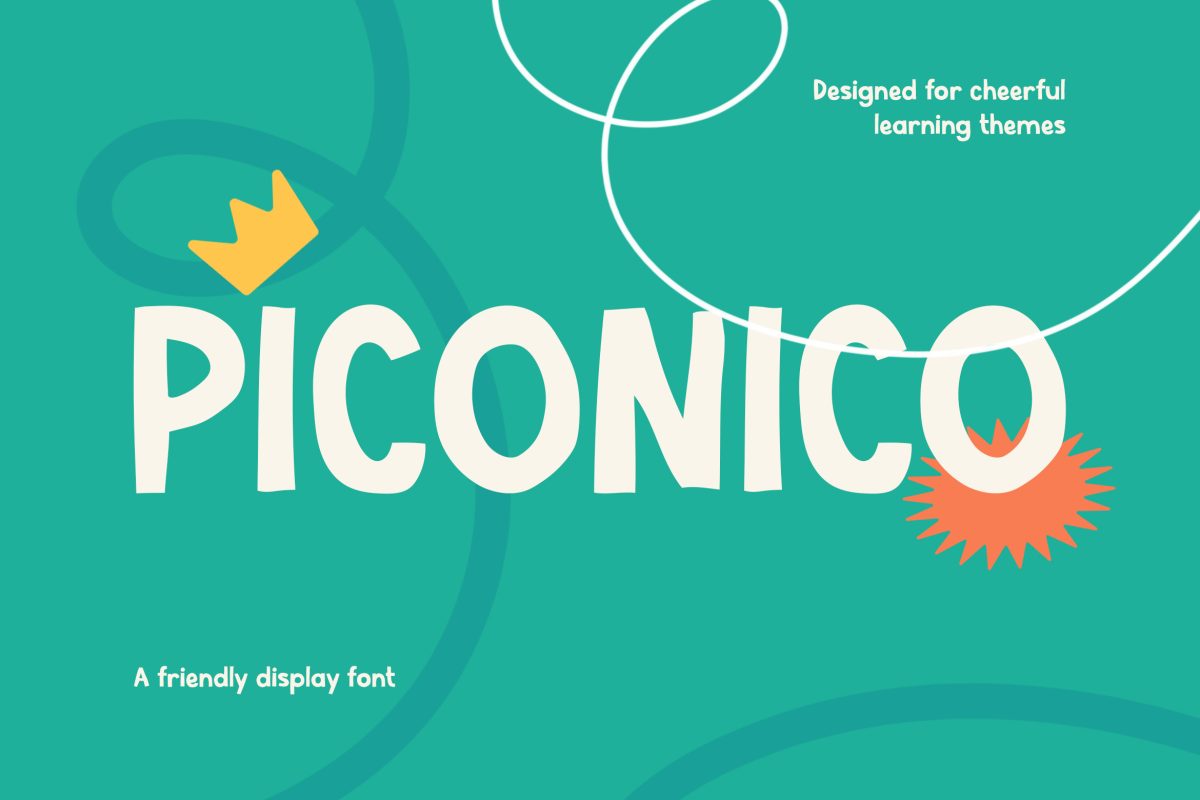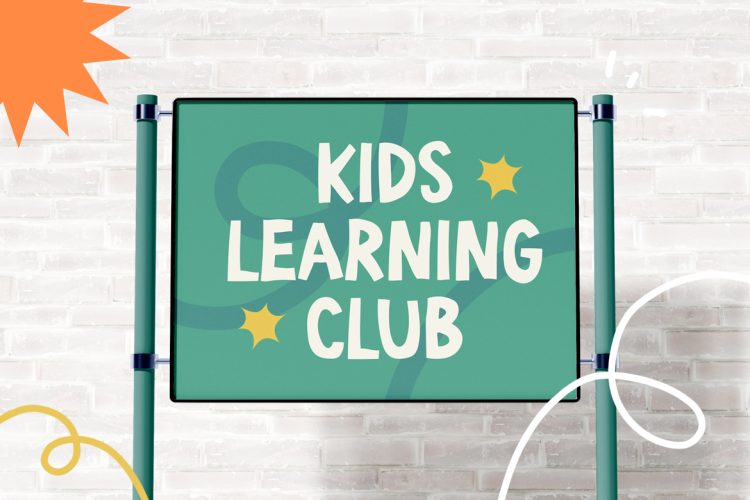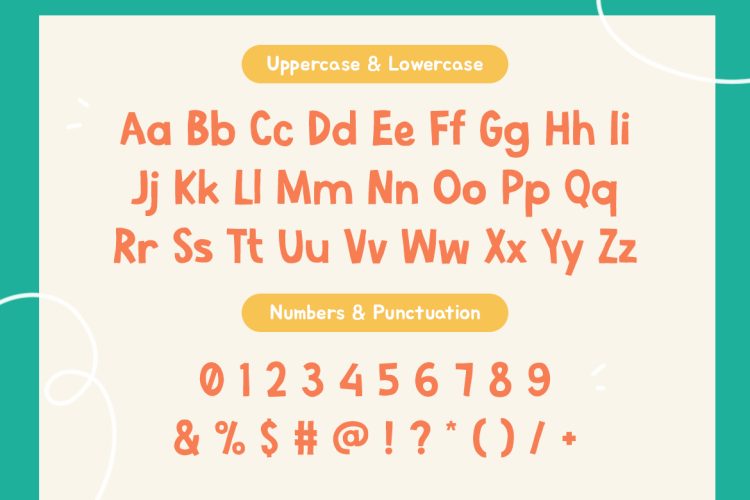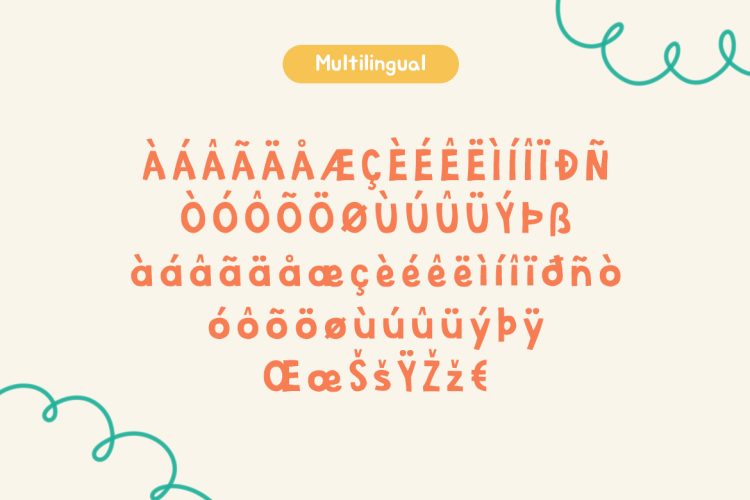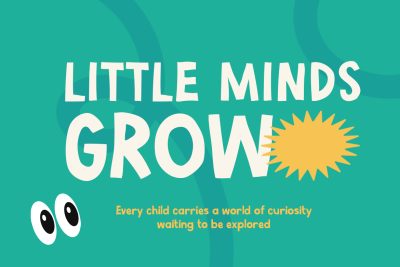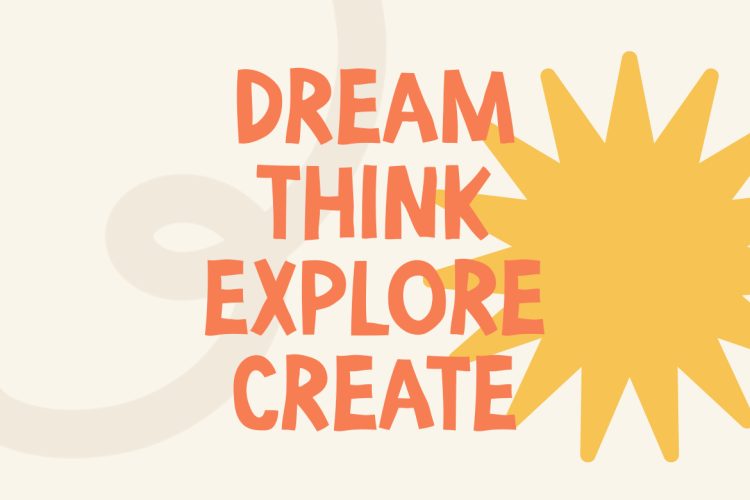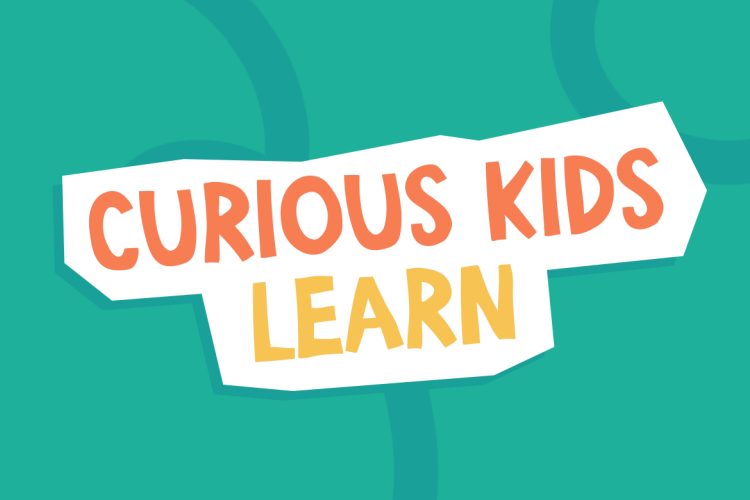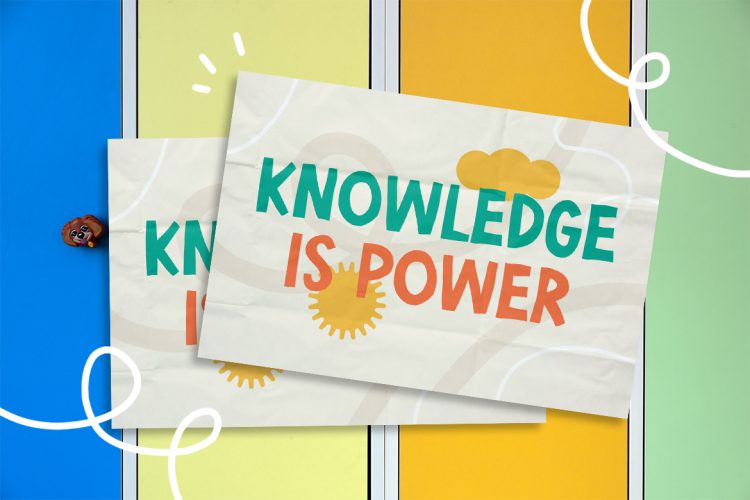
Instagram Font PICONICO โ Playful Creativity for Kids Typography
Instagram Font PICONICO is a cheerful and friendly display typeface designed to bring fun and creativity into playful design projects. Its rounded shapes, soft curves, and expressive letterforms instantly create a warm and joyful atmosphere. Because of its lively personality, the font feels approachable and energetic. As a result, every headline becomes more engaging and easy to notice. Moreover, the playful structure makes the typography highly readable while maintaining a unique cartoon-like charm. Instagram Font PICONICO perfectly captures the spirit of childrenโs creativity, curiosity, and imagination. In addition, the font supports 67 languages, allowing designers to create joyful and accessible designs for audiences around the world.
Instagram Font PICONICO combines modern playful style with smooth organic letterforms. Each character is crafted with rounded edges and balanced spacing, creating a friendly and welcoming appearance. Therefore, the font feels lighthearted while still maintaining strong visual clarity.
Furthermore, PICONICO performs beautifully in projects that require a bright and positive mood. For example, it works perfectly for educational graphics, childrenโs books, playful posters, and fun social media content. In addition, the cheerful style helps designs feel more interactive and expressive. Because of this flexibility, the font adapts easily to both digital layouts and printed materials.
Instagram Font PICONICO is ideal for graphic designers, educators, childrenโs brands, content creators, and creative studios. It works especially well for kids learning materials, educational posters, school branding, childrenโs books, playful packaging, toy branding, and colorful social media graphics.